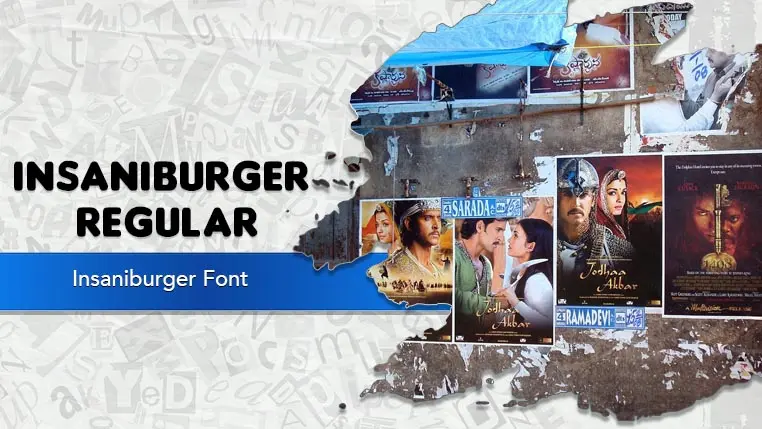
The Insaniburger font family may be ideal for you if you enjoy working on an artistic design project. The lively, expressive look of this typeface, which was created by Insanitype, makes it ideal for Logos and Branding, Packaging. Its bold and playful nature makes it perfect for headlines in posters, flyers, advertisements, and website banners where you want to make an immediate impact. Also , Its rounded and slightly whimsical appearance makes it suitable for children's books, toys, or entertainment branding. and other light-hearted visual projects.
Regular, Regular are the two primary font styles of the Insaniburger font family. You may build dynamic, visually appealing text layouts with the distinct flair that each style offers. With crisp, readable lines and a relaxed tone.